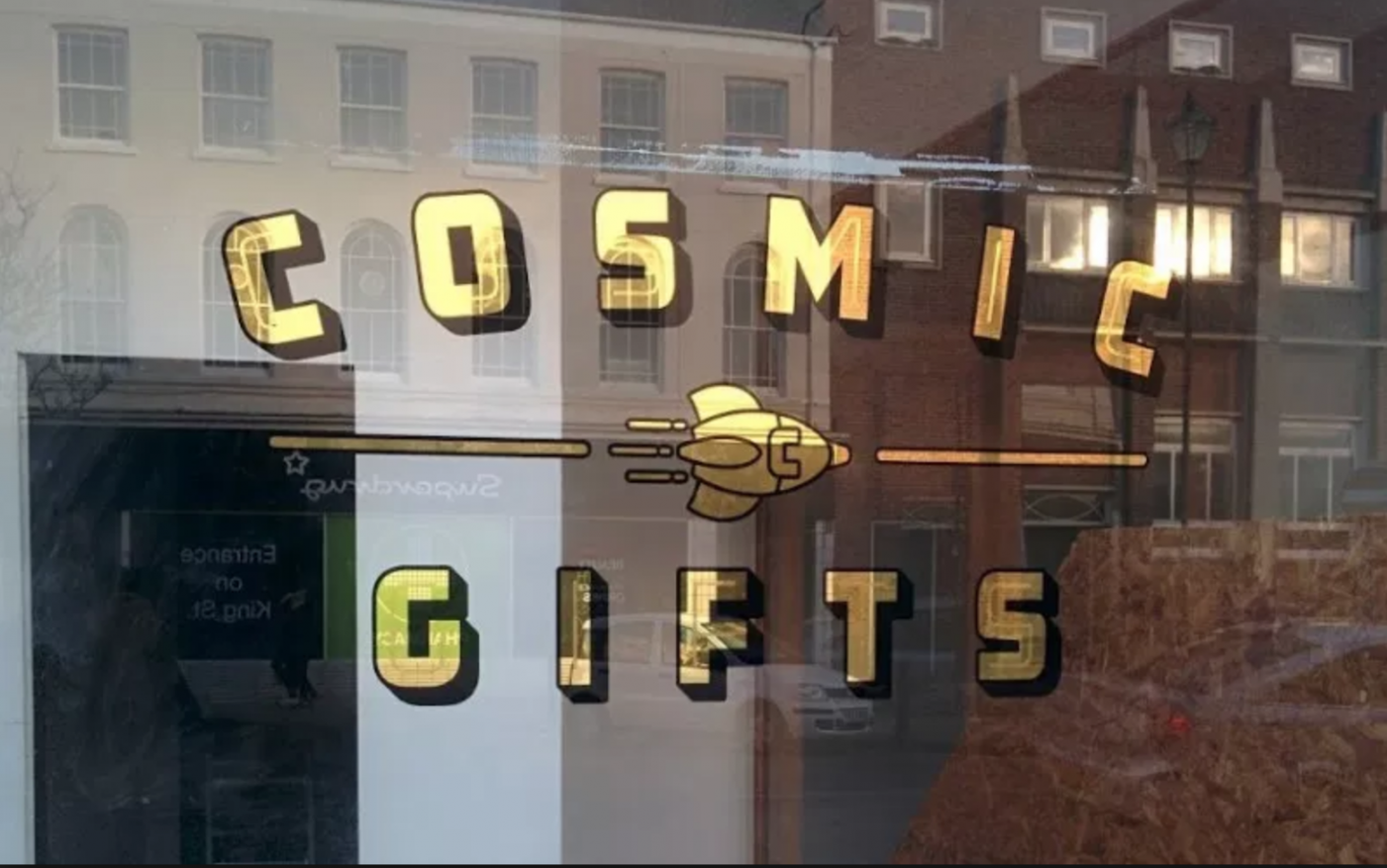
Retro Storefront style font with 3d drop shadow (Cosmic Gifts)
Looking to recreate this for a new studio office but no matter what I search I cant find it. Was wondering if its a font that exists at all as this storefront looks like a modern interpretation so it must of been made digitally somewhere or is it the work of a custom sign writer with no actual font that exists.